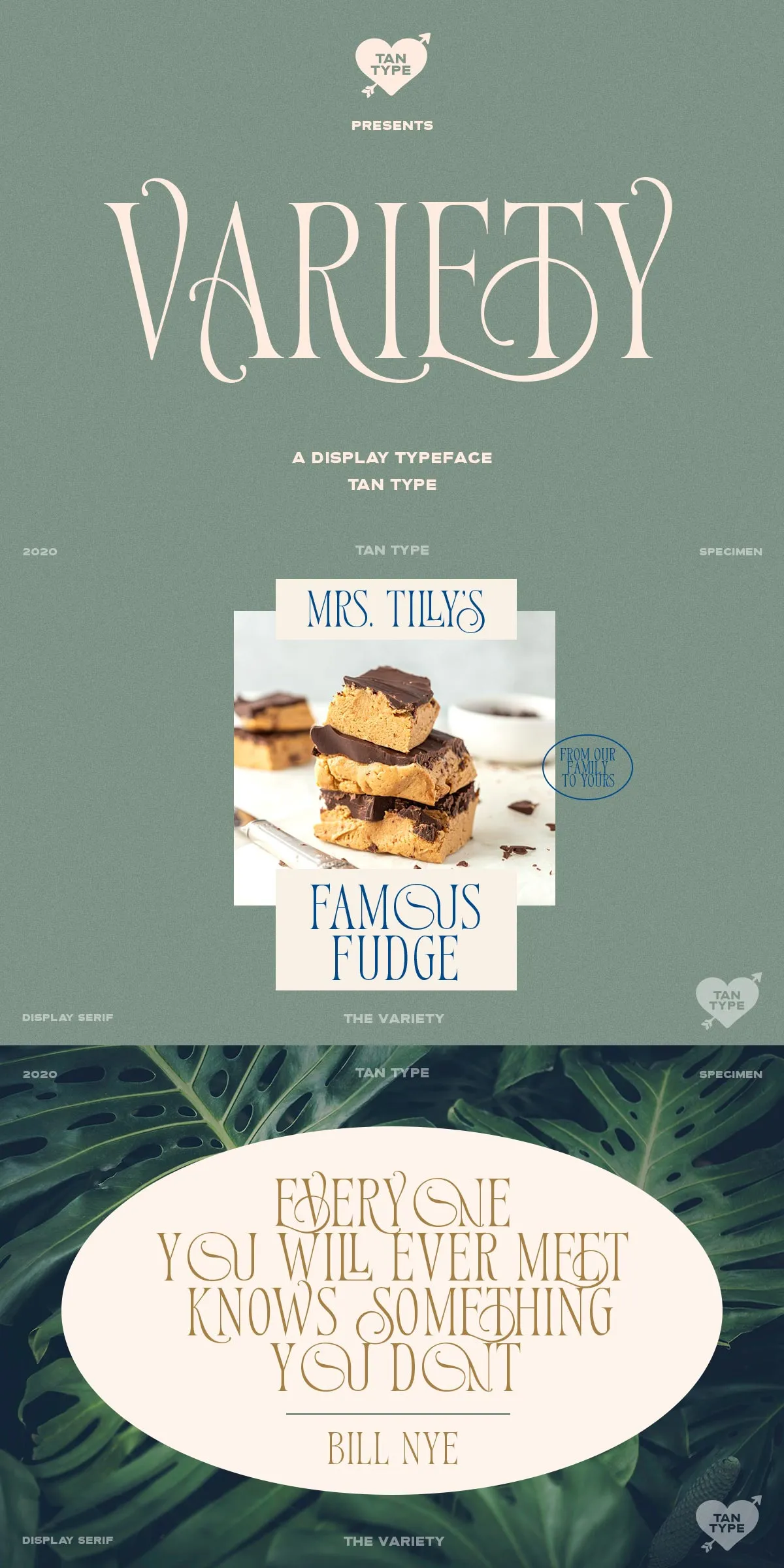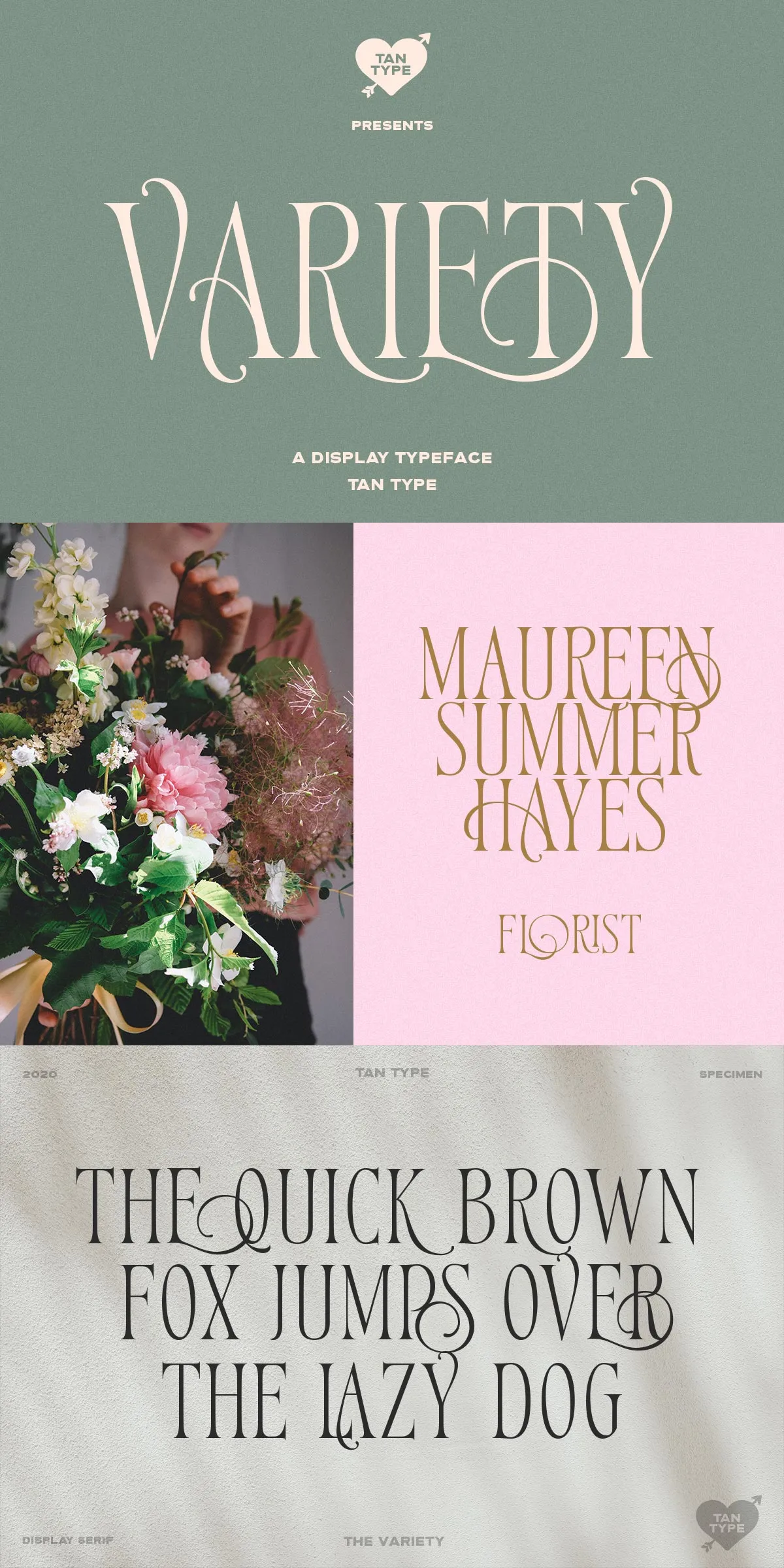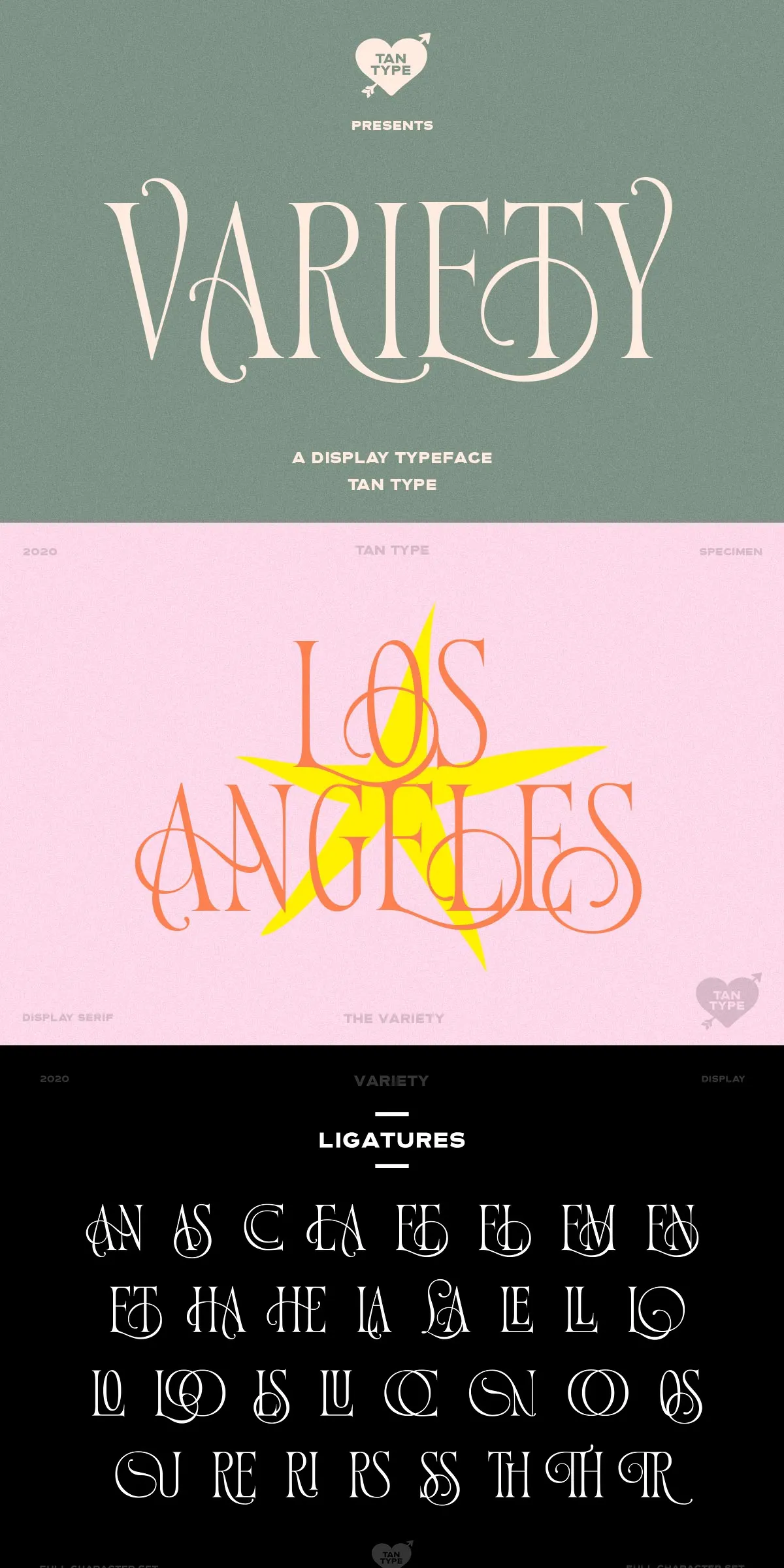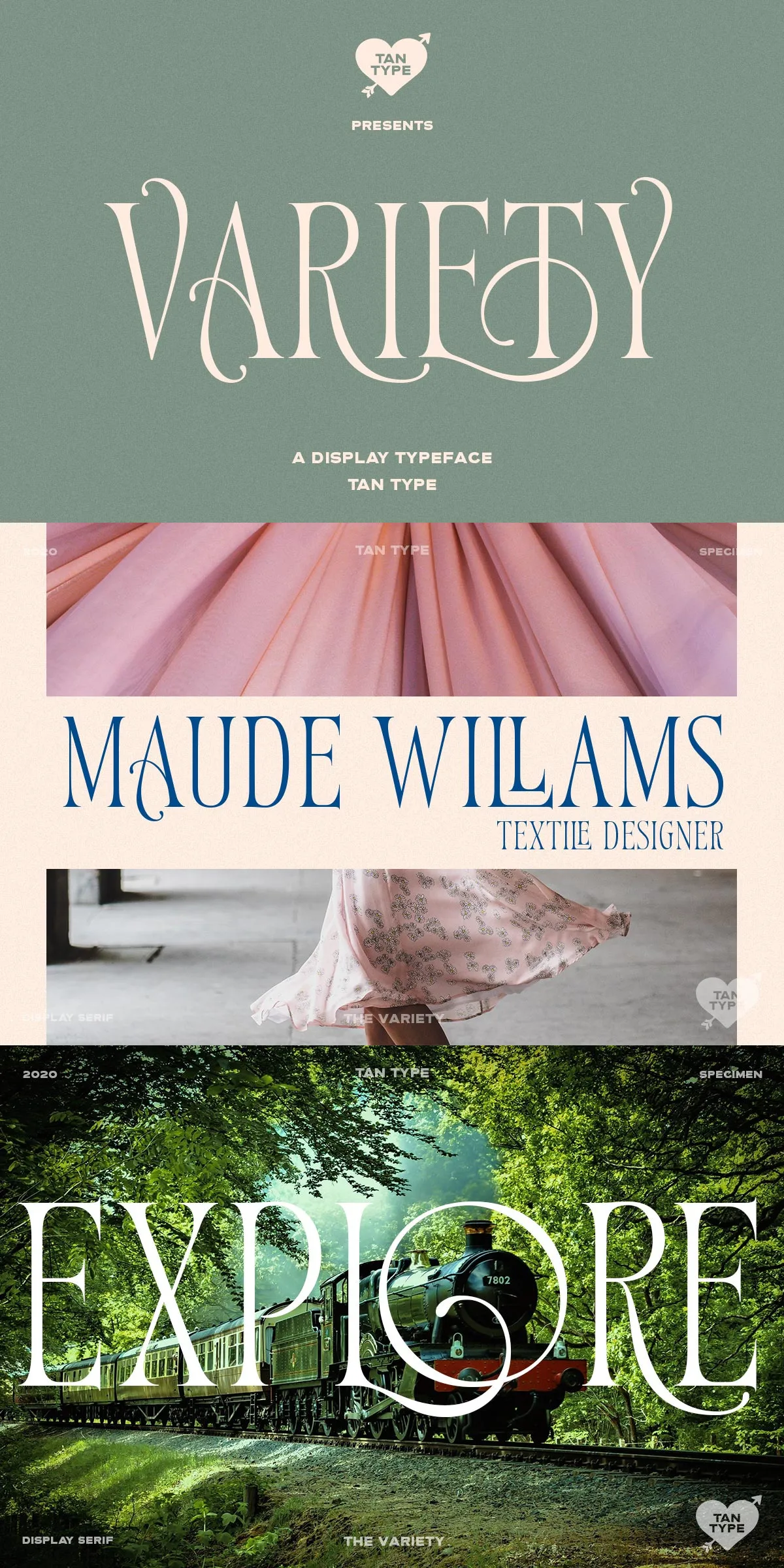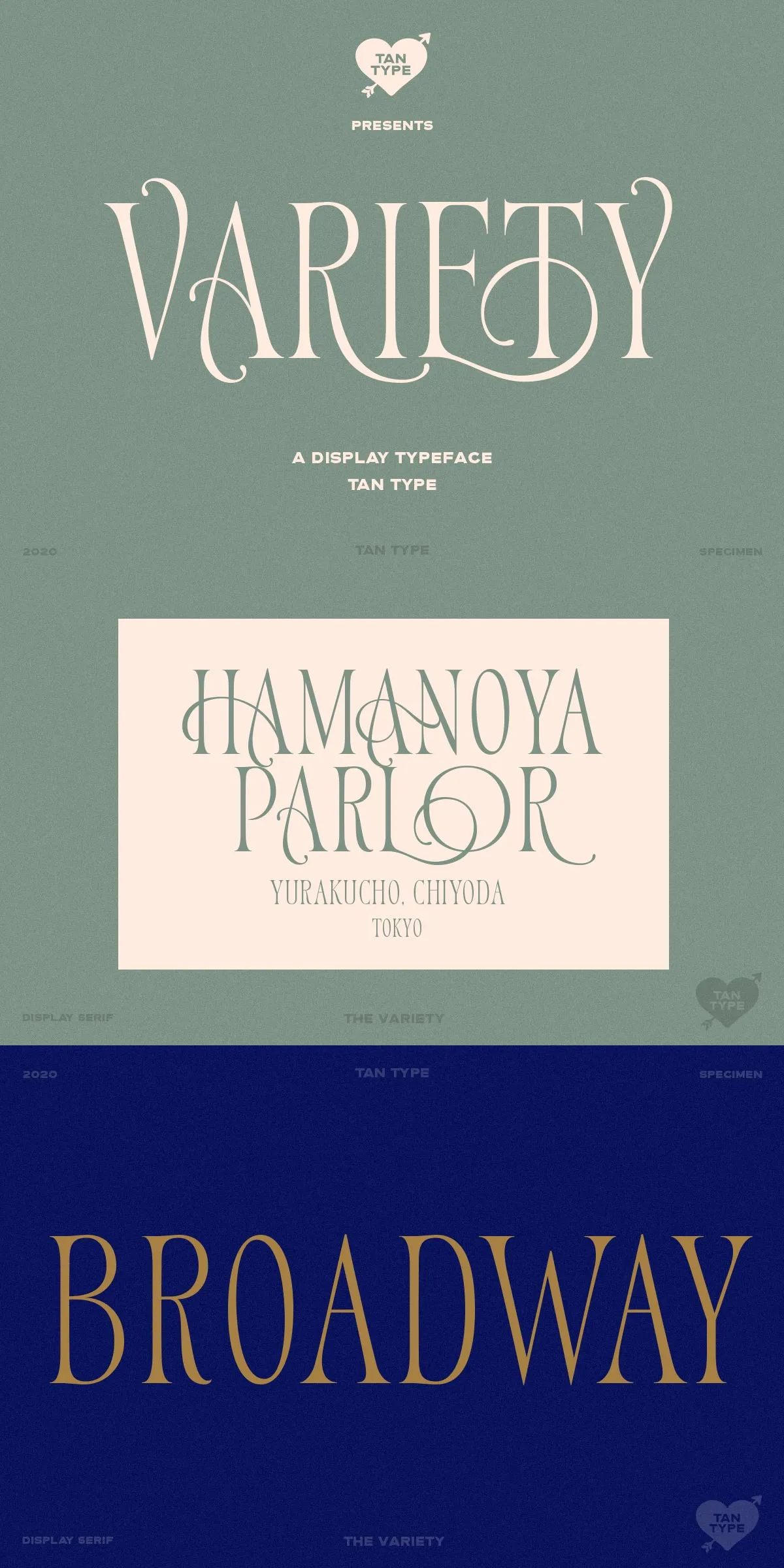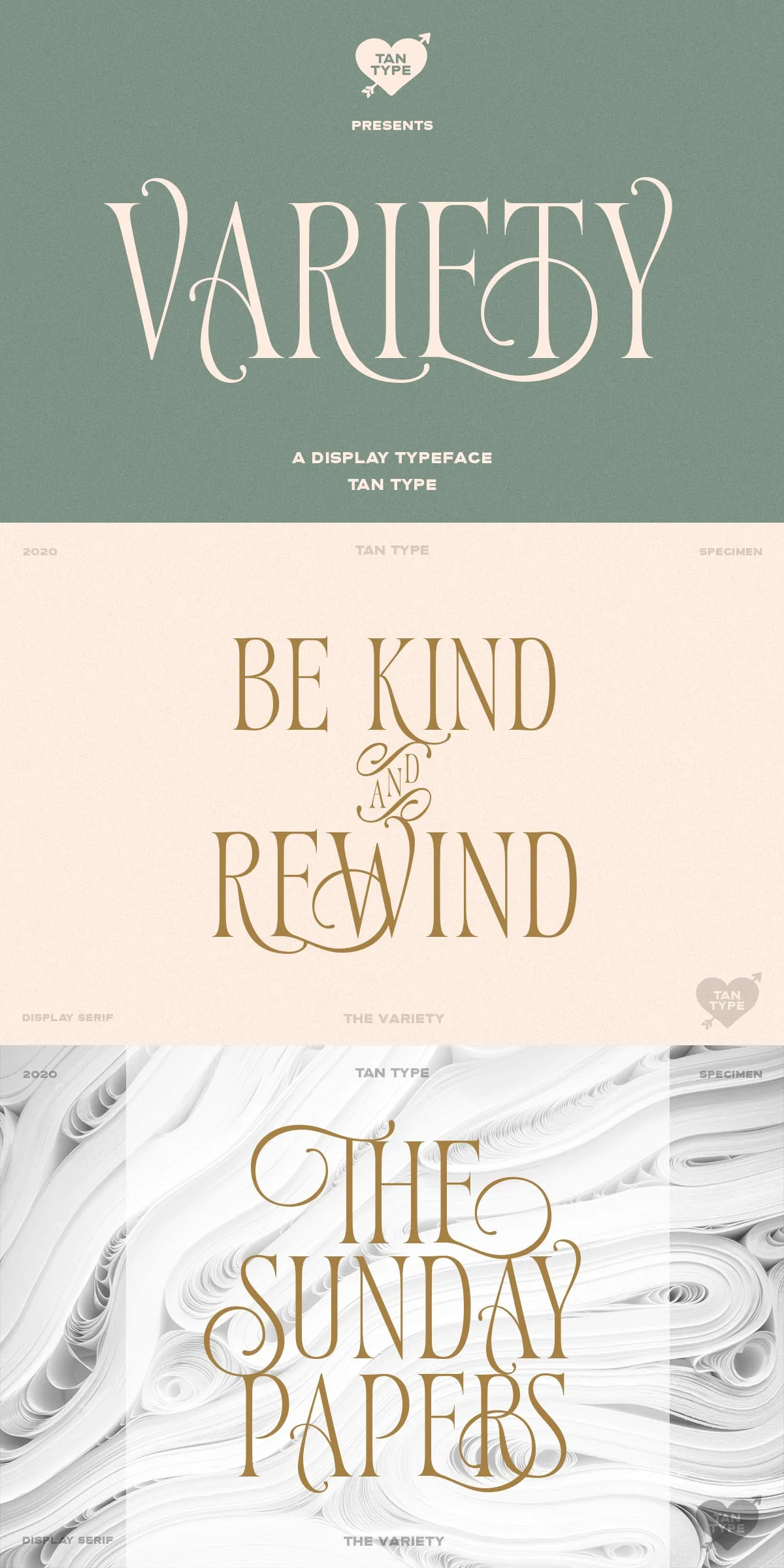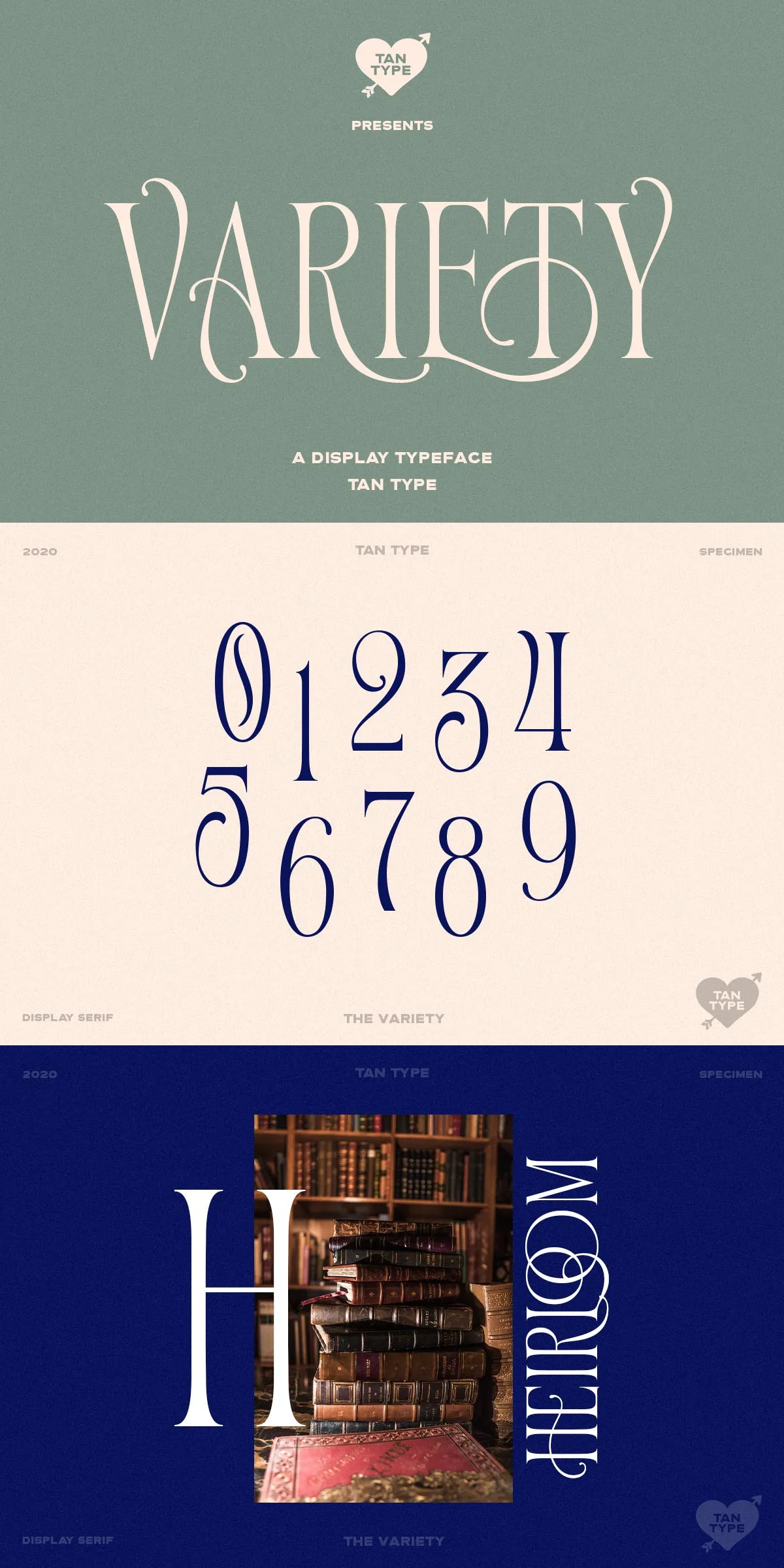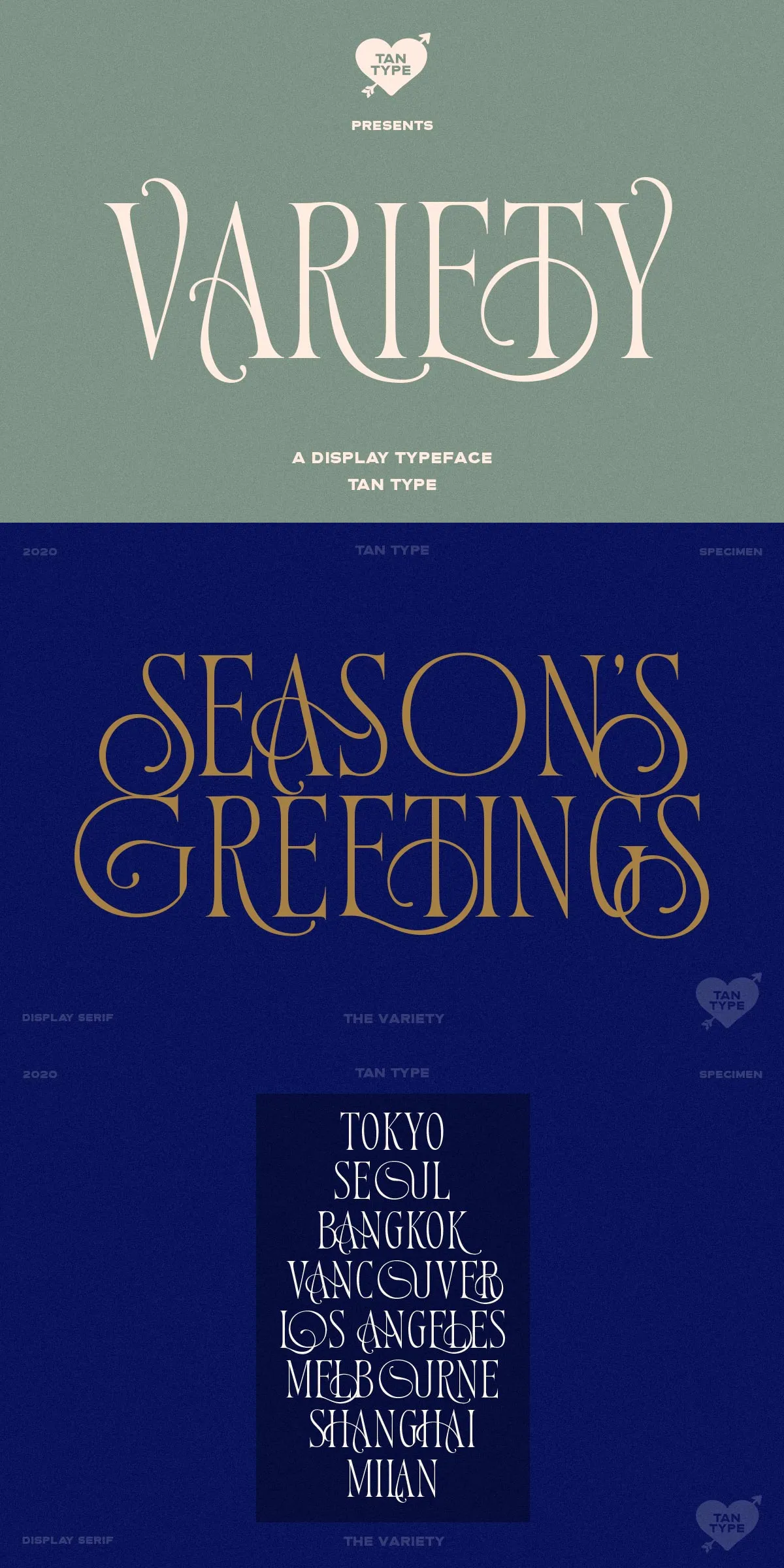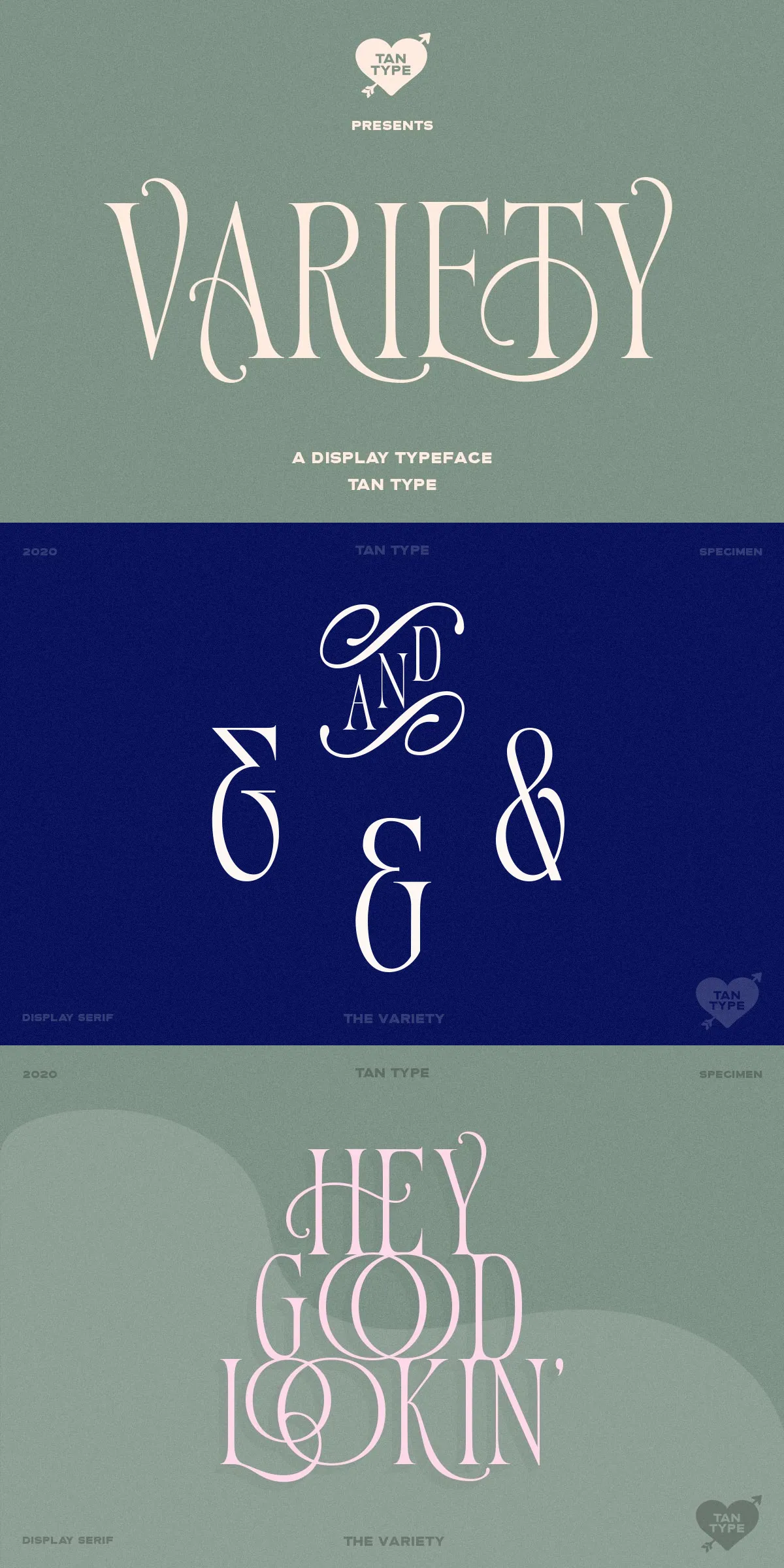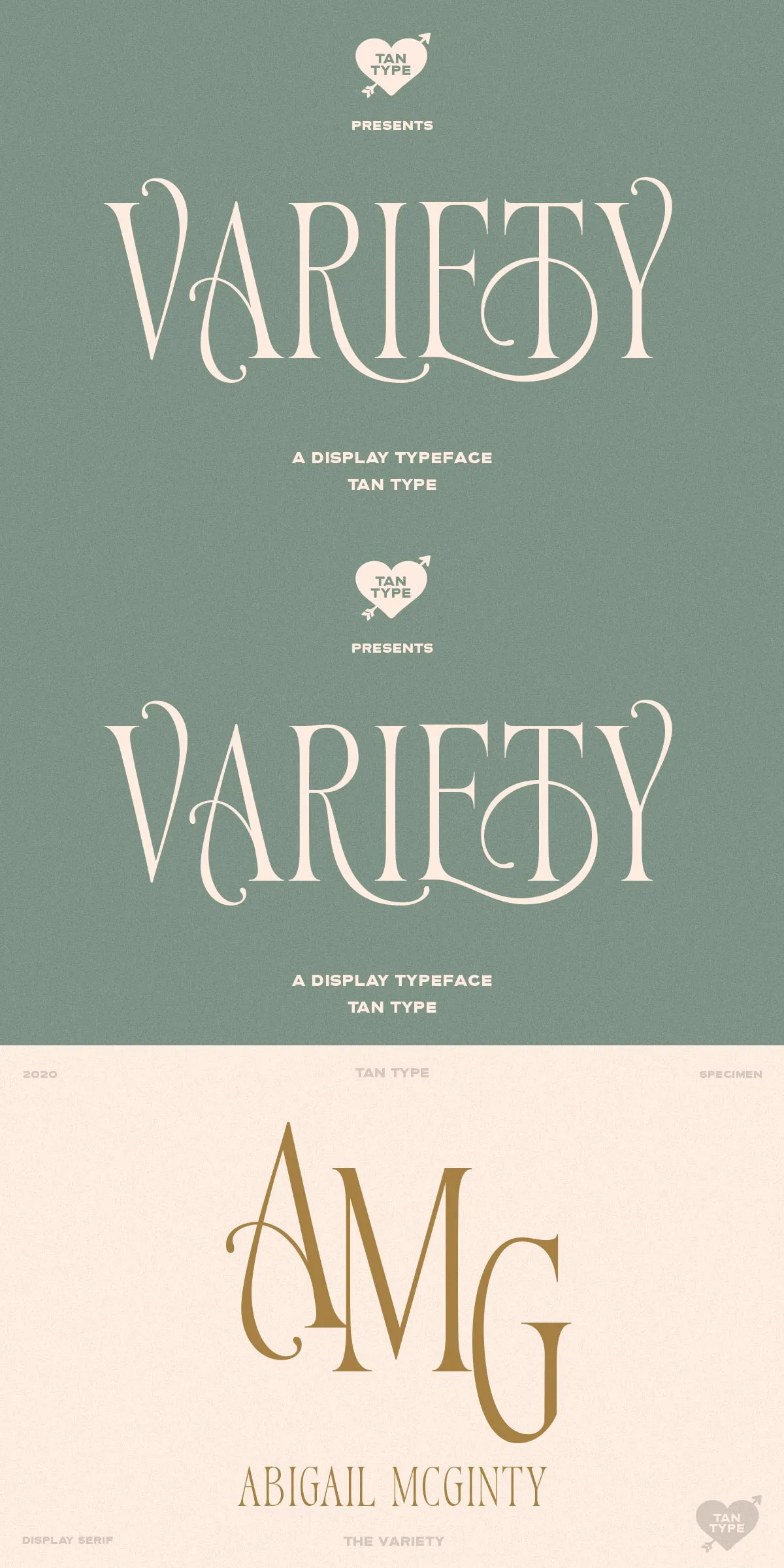
Transform your creative projects with Variety, a bold, all-caps display typeface that embodies classical elegance with a modern edge. Designed for impact, Variety isn’t just a font — it’s a statement. From luxury logos and fashion branding to editorial spreads and high-end packaging, this typeface delivers the refined grandeur that sets your work apart.
Unmatched Elegance with a Timeless Classical Foundation
Variety draws inspiration from classic typography traditions — think marble lettering on historic buildings, vintage fashion catalogs, and handcrafted monograms. Its perfectly balanced proportions, refined terminals, and dignified spacing give it a regal presence. Every letter is crafted to command attention without shouting. It’s not loud — it’s confident. Not flashy — it’s timeless.
Designed for Luxury, Built for Impact
Whether you’re creating a luxury fashion label, a premium brand identity, or an editorial centerpiece, Variety brings a sense of heritage and craftsmanship. Its all-caps structure emphasizes boldness and clarity, making it ideal for headlines, slogans, and visual anchors. Use it to elevate your content from ordinary to unforgettable.
Perfect for Fashion, Branding & Editorial Design
Variety isn’t limited to one niche — it thrives across design disciplines. In fashion, it conveys exclusivity and artistry. In branding, it establishes authority and prestige. In editorial design, it sets mood and tone with a simple, powerful text element. The versatility of this display typeface allows you to use it in logos, social media headers, magazine covers, lookbooks, and even product labels.
Premium Features for Professional Designers
Designed for real-world use, Variety comes with everything you need to deliver polished, professional results — every time.
Comprehensive Character Set & Special Features
Variety includes a wide range of glyphs to support your creative needs:
- Uppercase letters with refined spacing and kerning
- Full punctuation: commas, periods, em dashes, quotation marks, ellipses
- Standard numerals and fractions
- Special symbols and ligatures (when available in OpenType)
Limited Multilingual Support — Designed for Global Impact with Care
Variety supports key Western languages including English, French, German, Spanish, Italian, and Portuguese. While its multilingual support is intentionally focused to preserve typographic integrity, it is perfectly suited for international campaigns and cross-market branding where elegance and clarity matter most.
Bring Your Vision to Life with Variety — Where Class Meets Power
Variety isn’t just a font — it’s an attitude. It’s for designers who believe that detail defines excellence, and that a single letter can change the mood of an entire design. It’s not for the faint of heart. It’s for creators who want to leave a legacy.